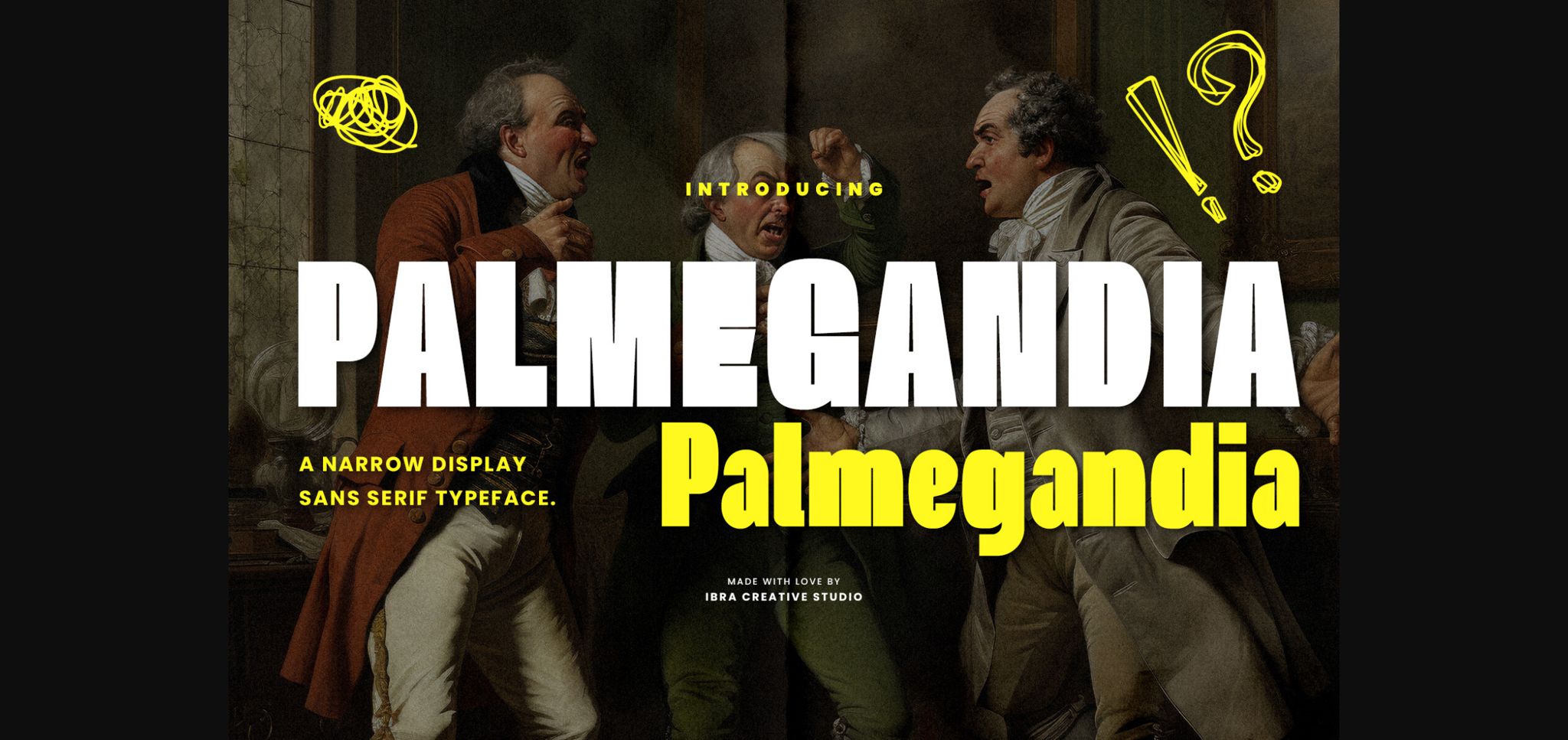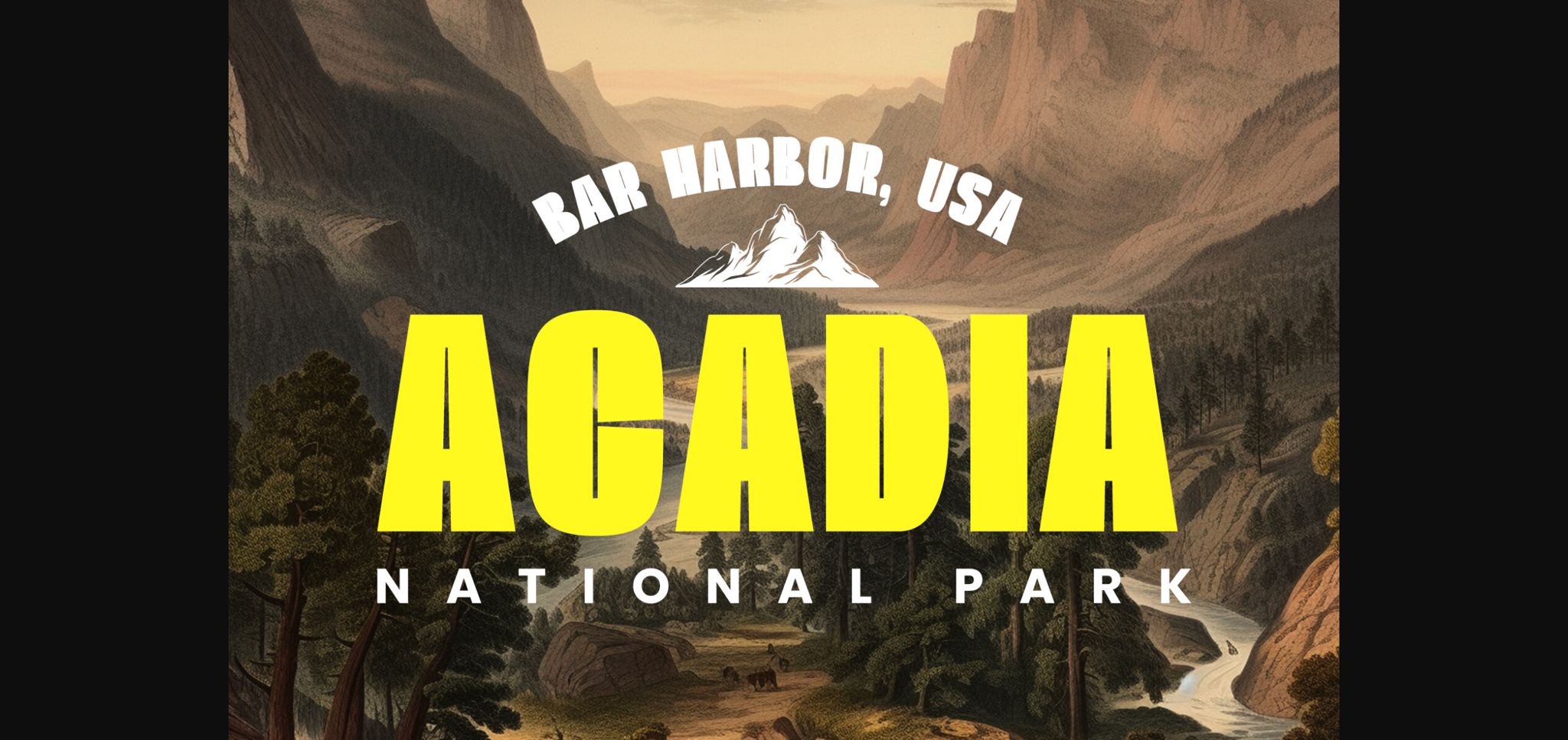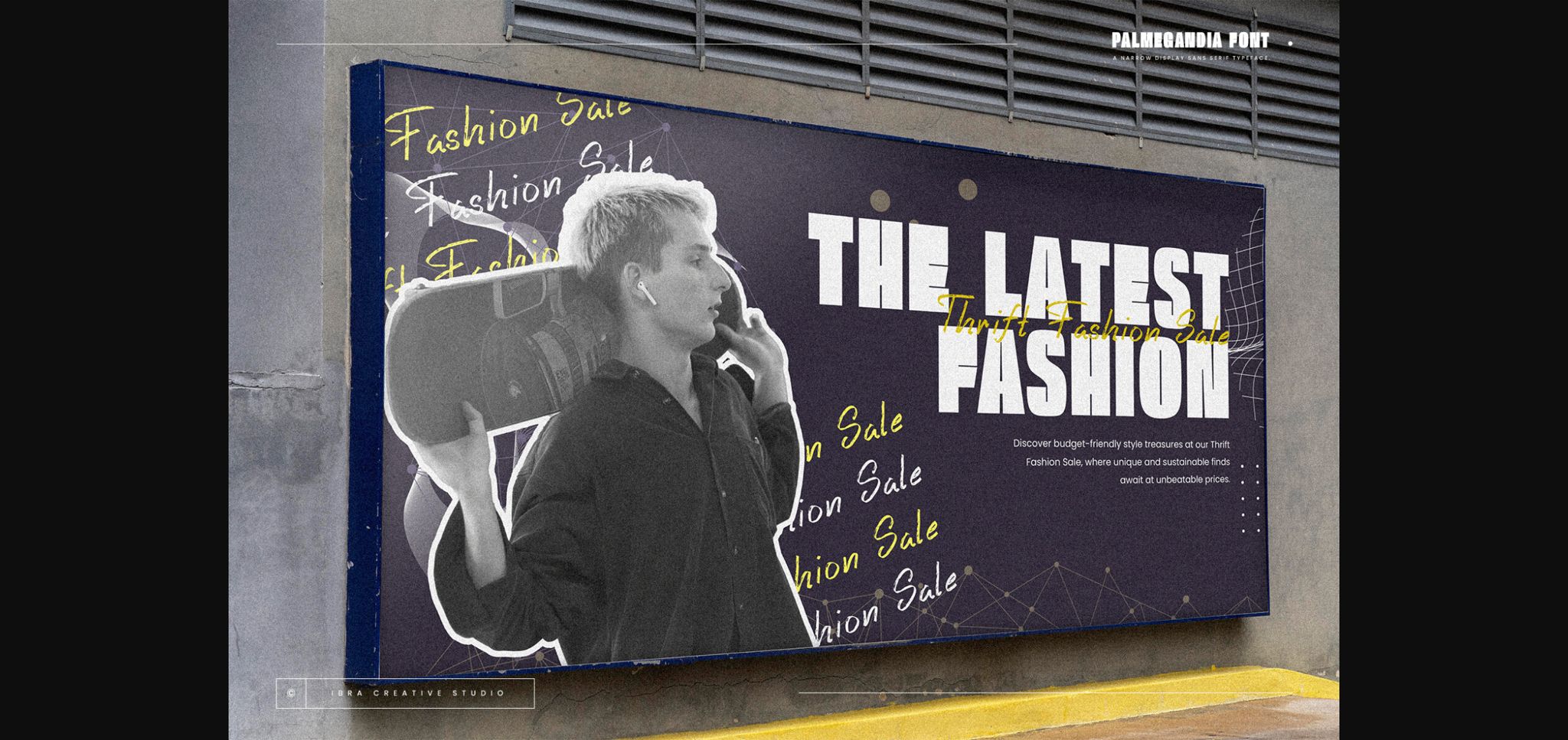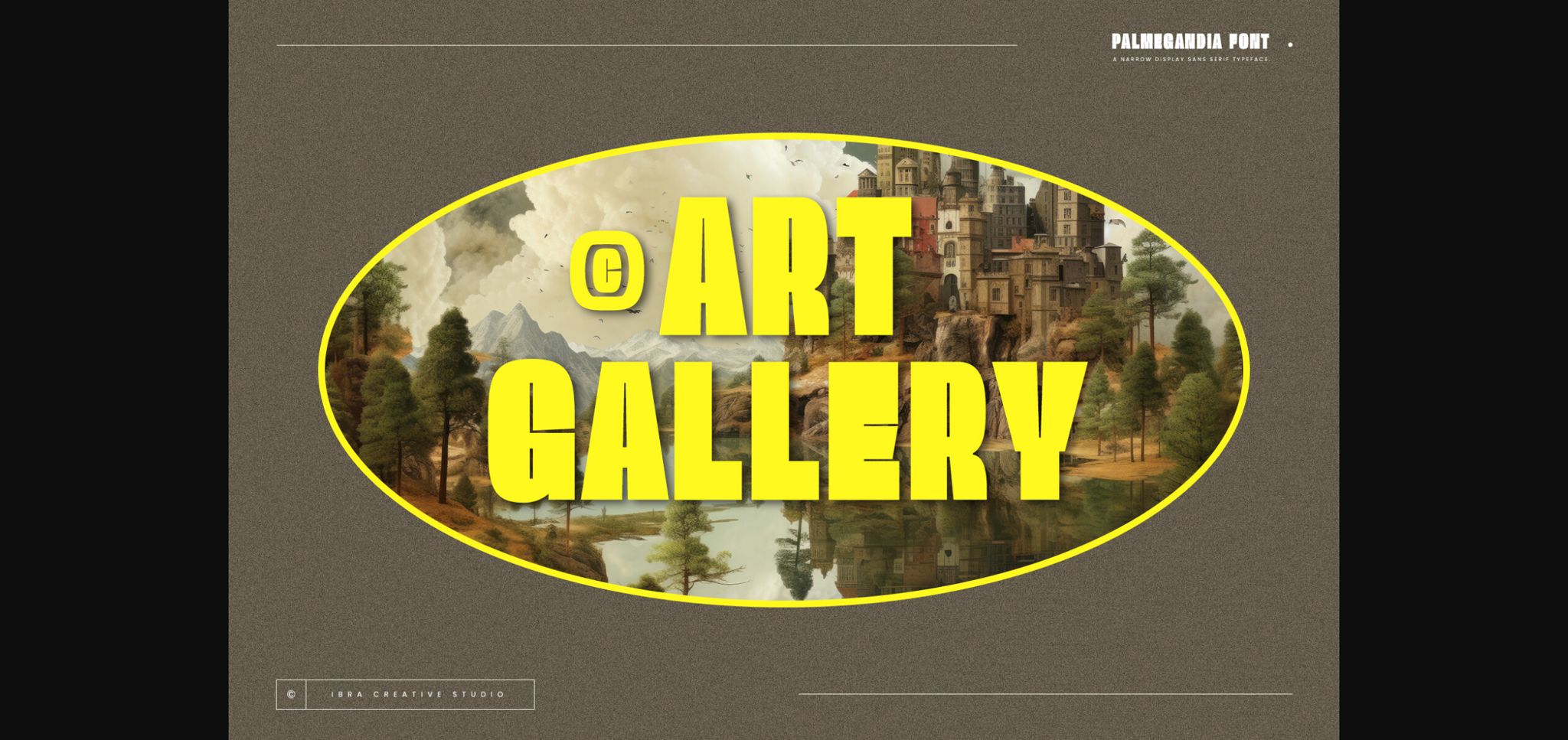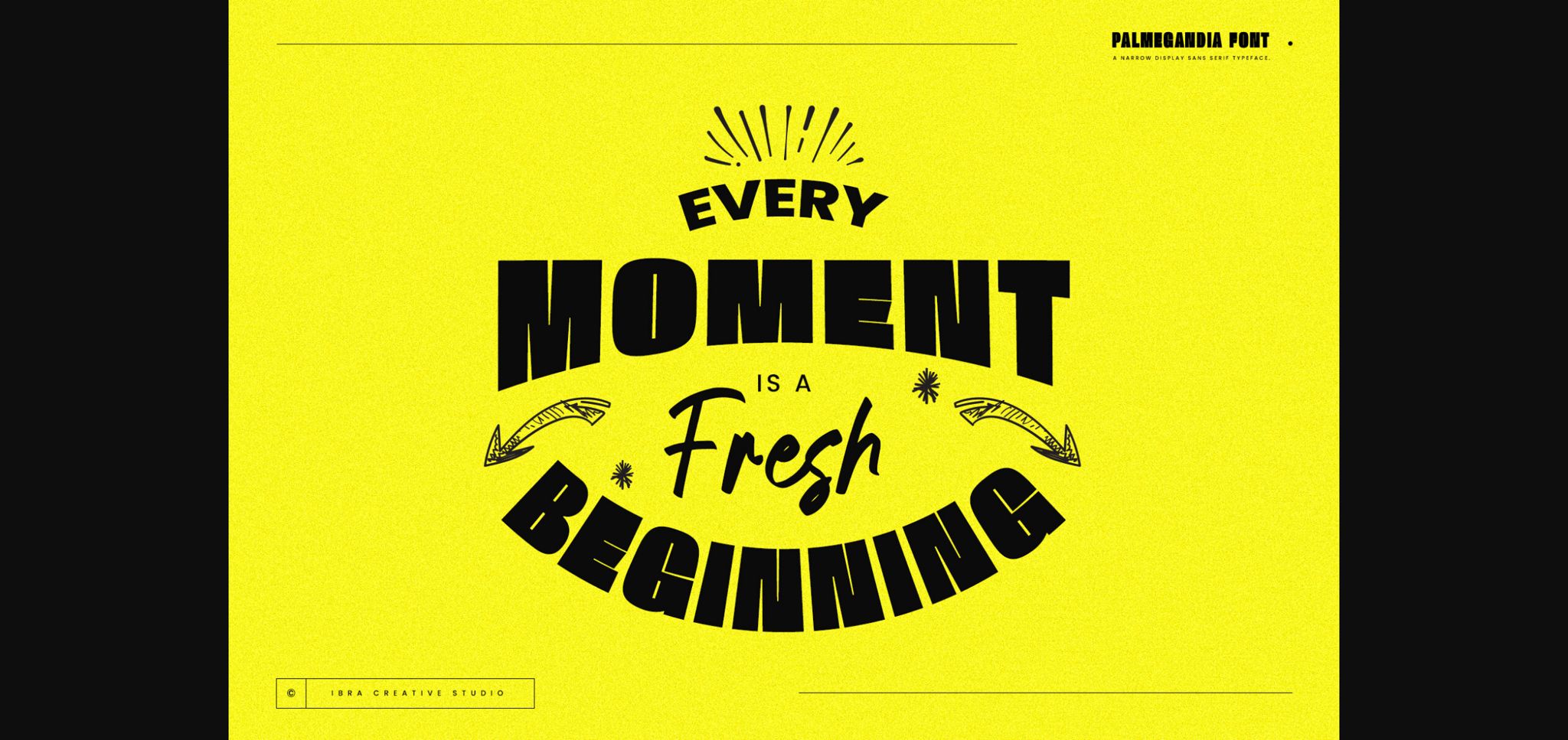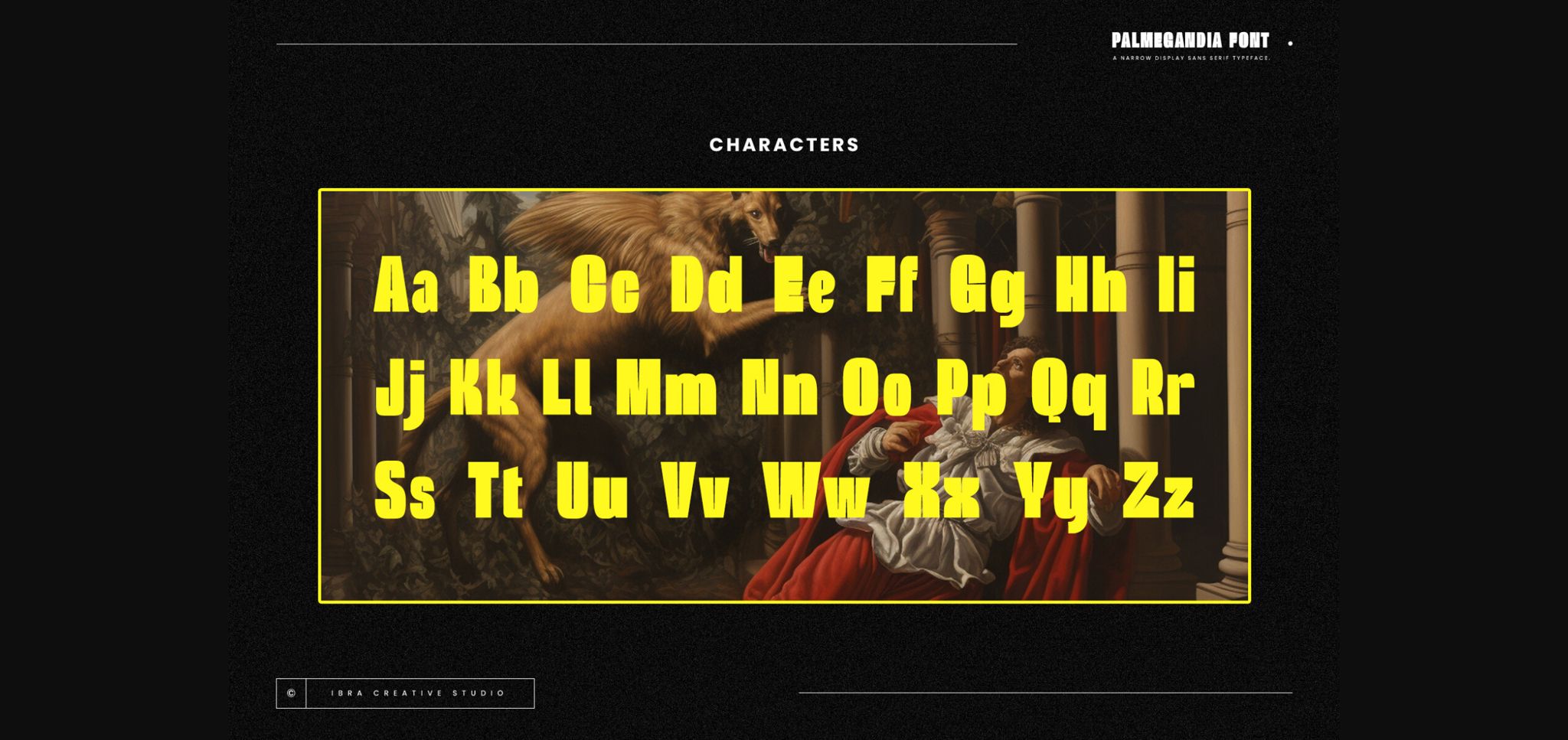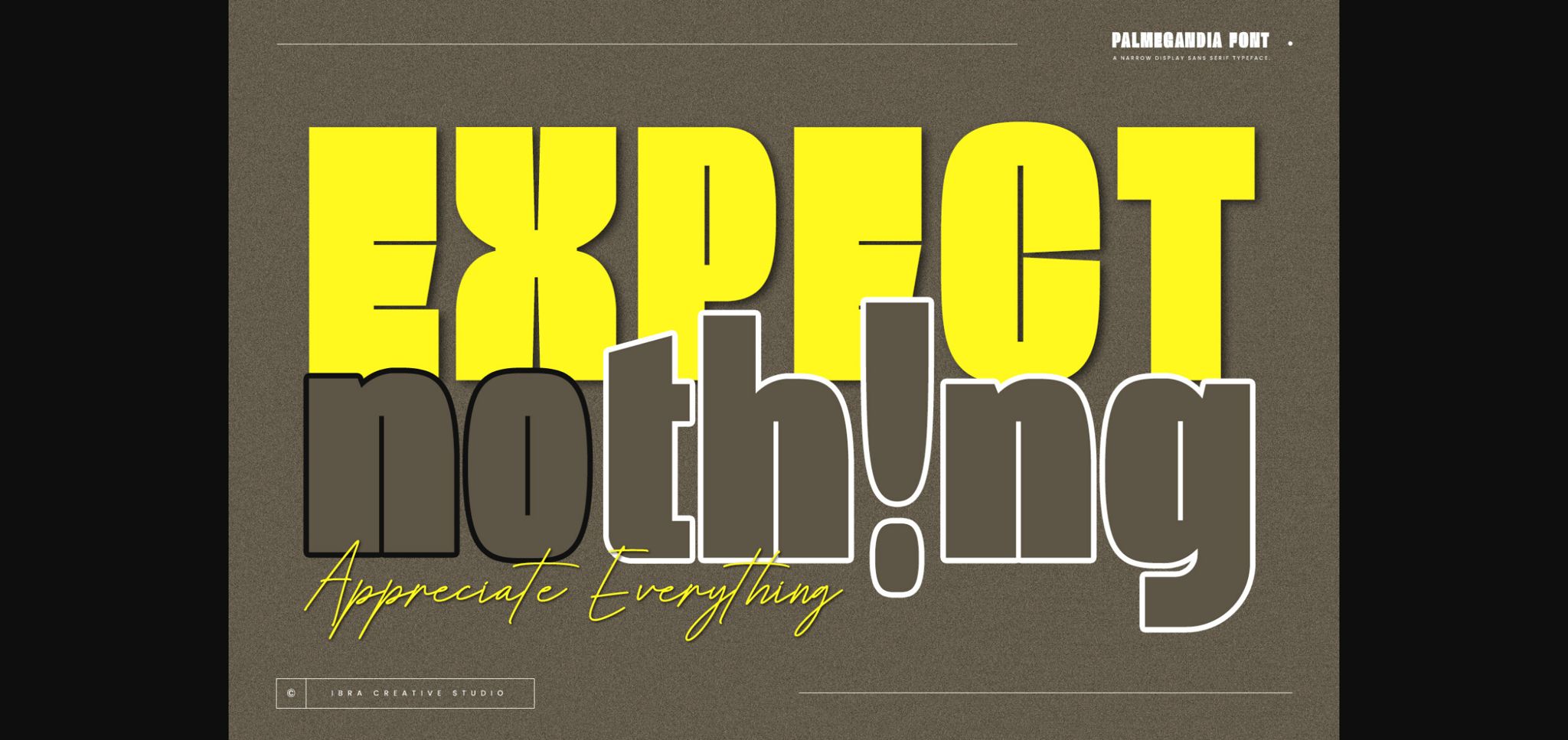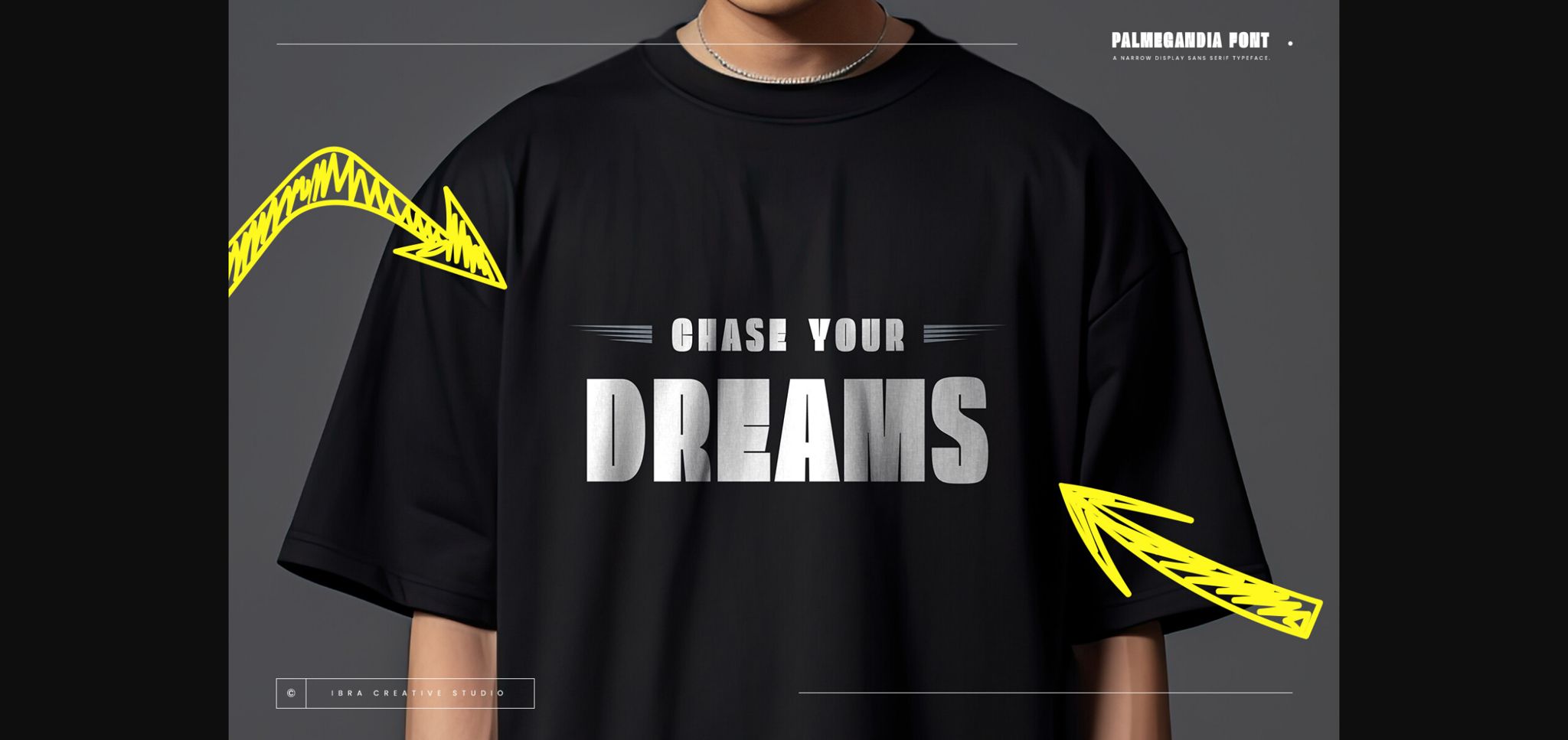
Palmegandia Font
About Palmegandia Font
Palmegandia is a sophisticated narrow display sans-serif typeface that effortlessly combines elegance with modern simplicity. Its slender letterforms exude a refined and contemporary aesthetic, making it ideal for applications where space is at a premium, such as headlines, banners, and logos.